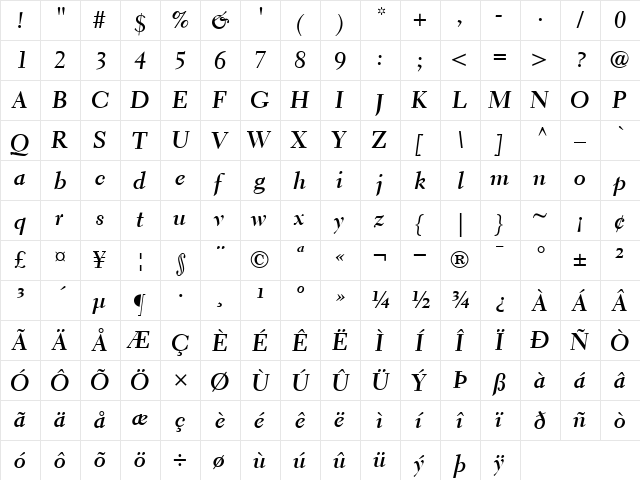
Design Context for ElectraLHCursive Typeface
ElectraLHCursive flows with the natural rhythm of handwritten lettering, making it ideal for designs that call for warmth and personal expression. The heavy weight commands attention and anchors typographic hierarchies.
Font Pairing: Combine ElectraLHCursive with a simple geometric sans for maximum contrast — the tension between flowing curves and clean structure is a classic typographic pairing.
Pro Tip: Pair ElectraLHCursive with a clean sans-serif for supporting text. The contrast between fluid script and geometric structure creates an elegant typographic hierarchy.